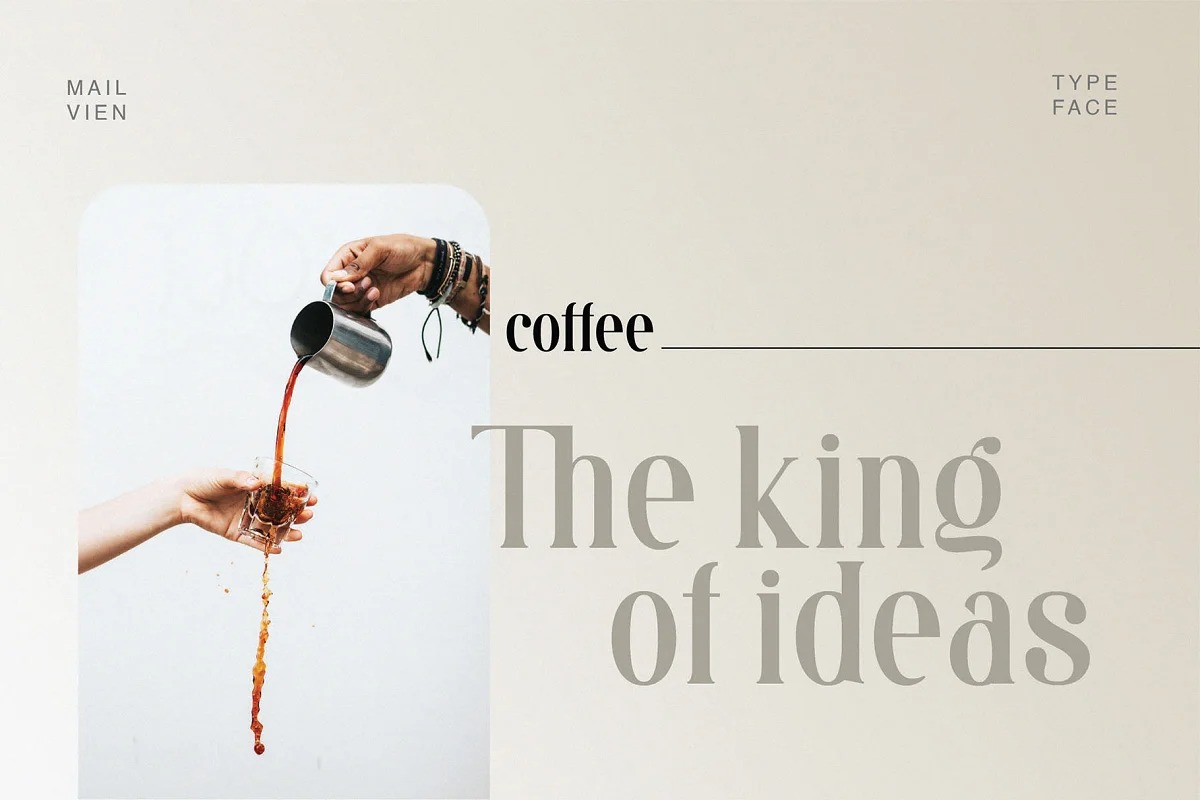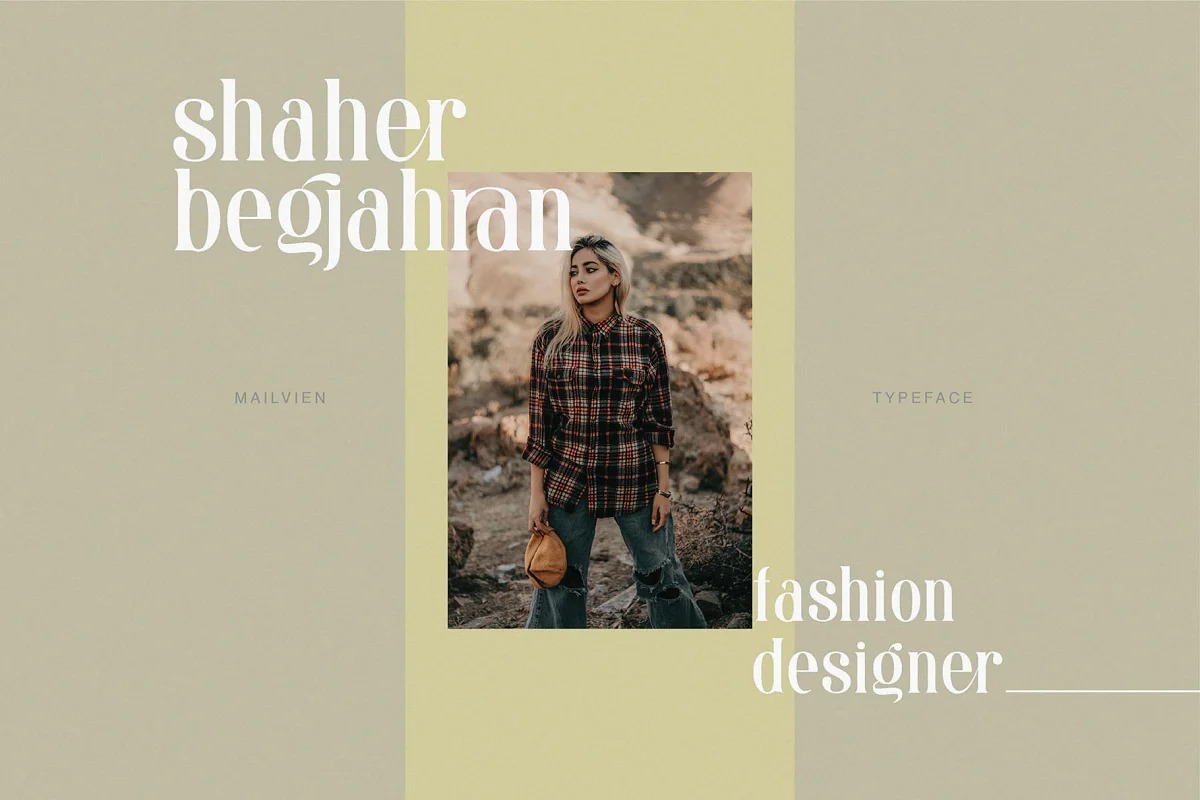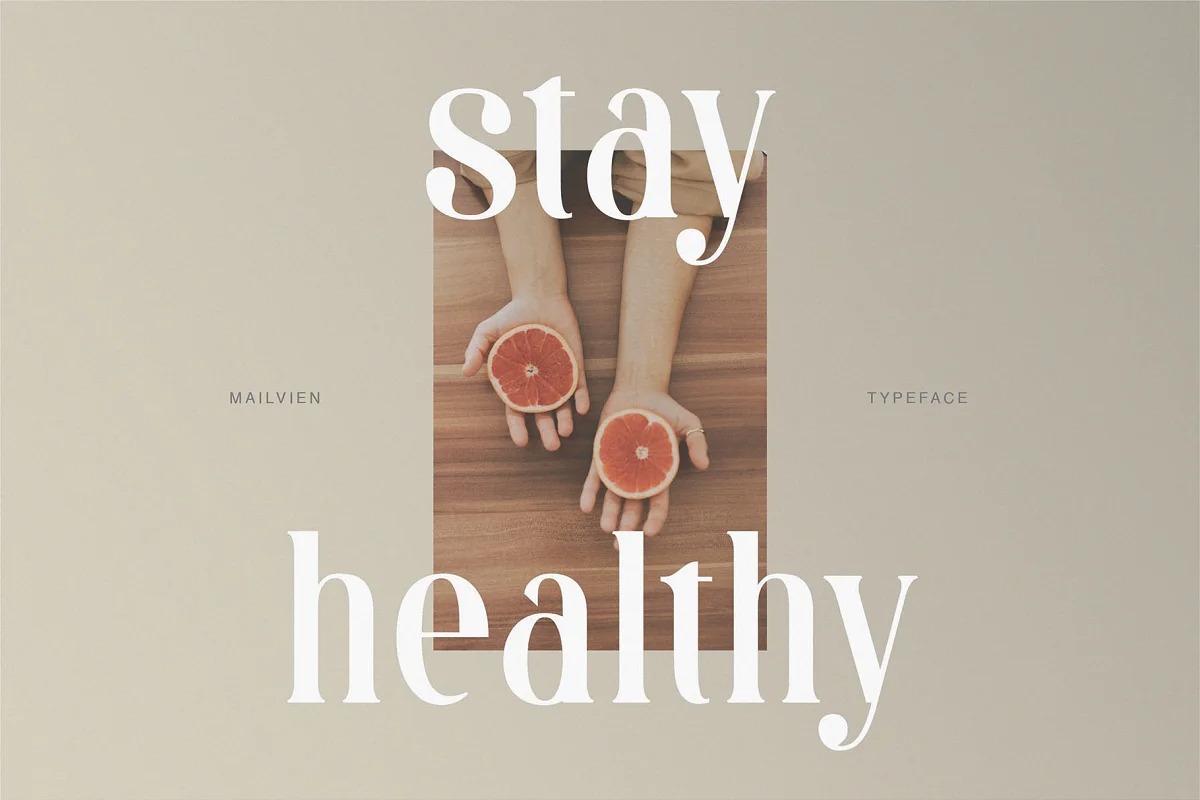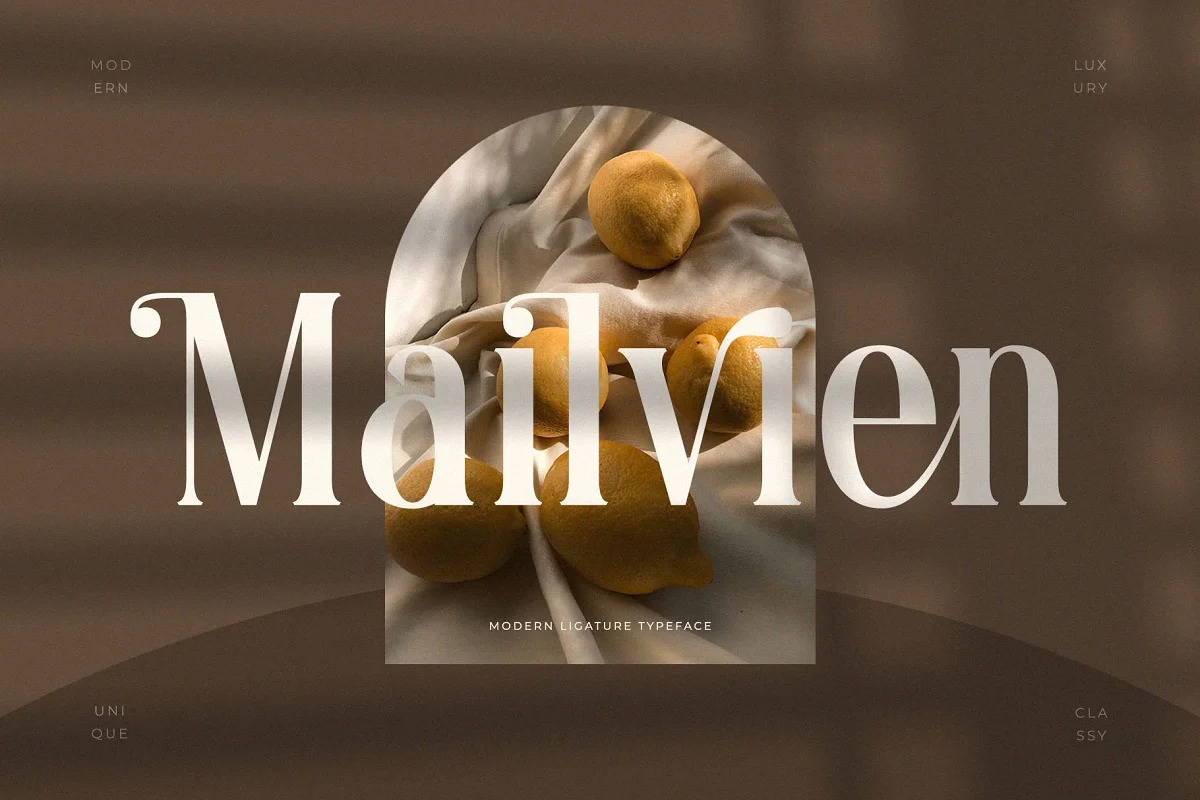
Mailvien Serif Font
It’s a luxury and elegant typeface pair that will bring a unique style and a trendy look to your designs. With this font elegant styles you can create design such as wedding media, book covers, greeting cards, logos, branding, business cards and certificates, even for any design work that requires a classic, formal or luxurious look.